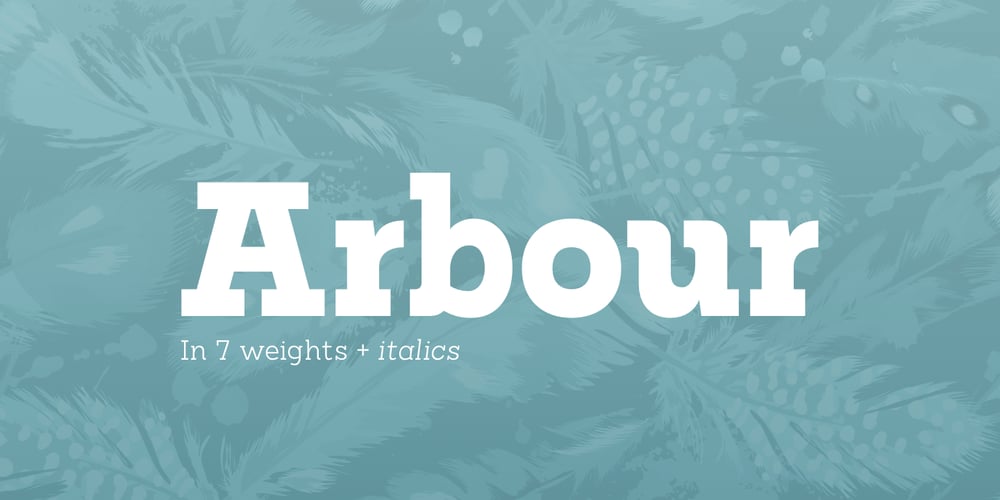
Arbour
Arbour font
Arbour Font Family was designed by Dan Jones and published by TypeUnion. Arbour contains 14 styles and family package options. With its solid slab form, mixed with subtle curved terminals, Arbour is a unique font with the versatility to work in many different scenarios, from branding to digital applications. It comes in 7 weights, from a delicate extra-light to a solid, strong black, with matching italics for each upright. Arbour may have a serious look to it but it also has a playful side. The light weights are great for calling out text and the heavy weights are perfect for that new brand you are working on.